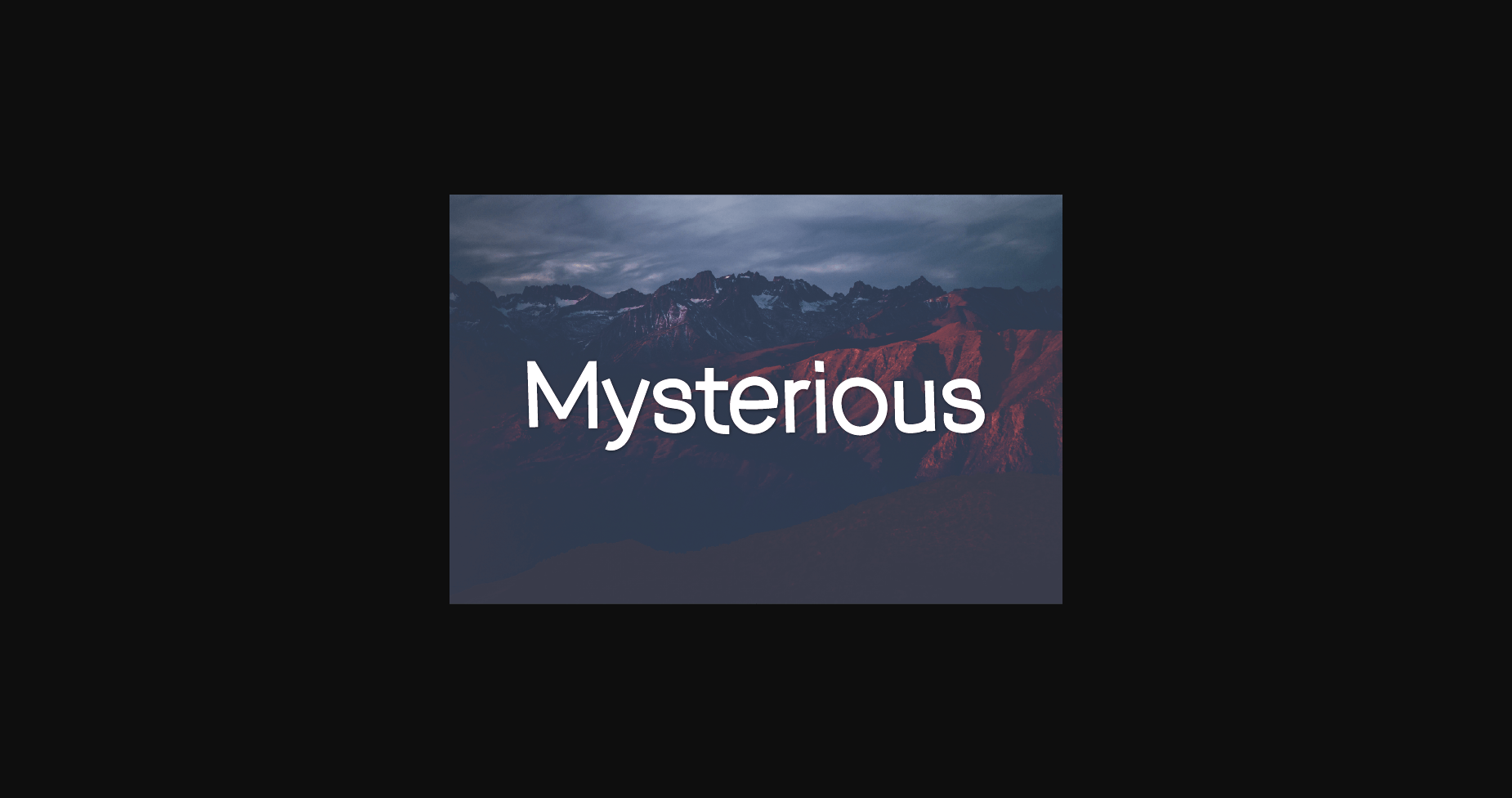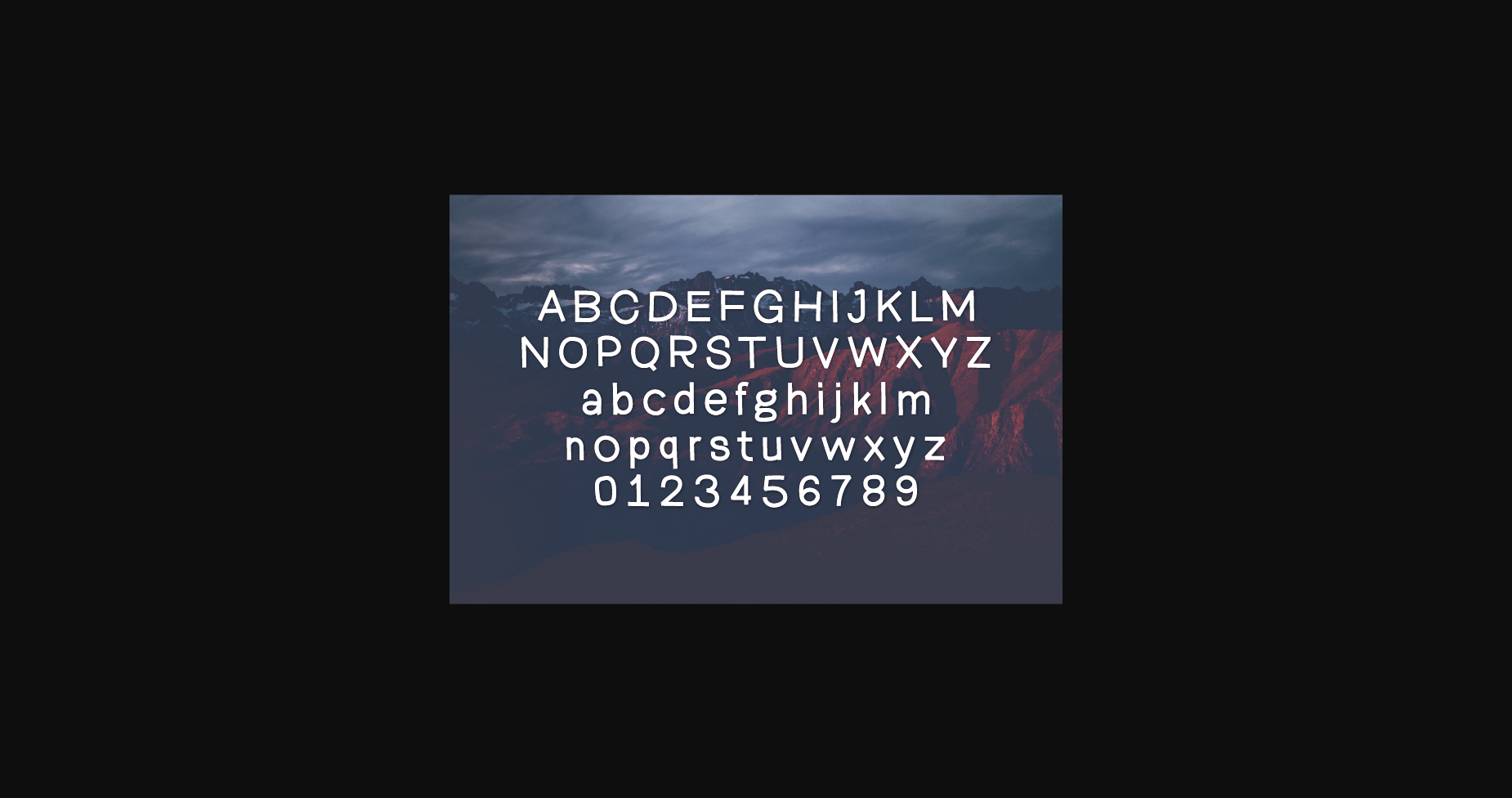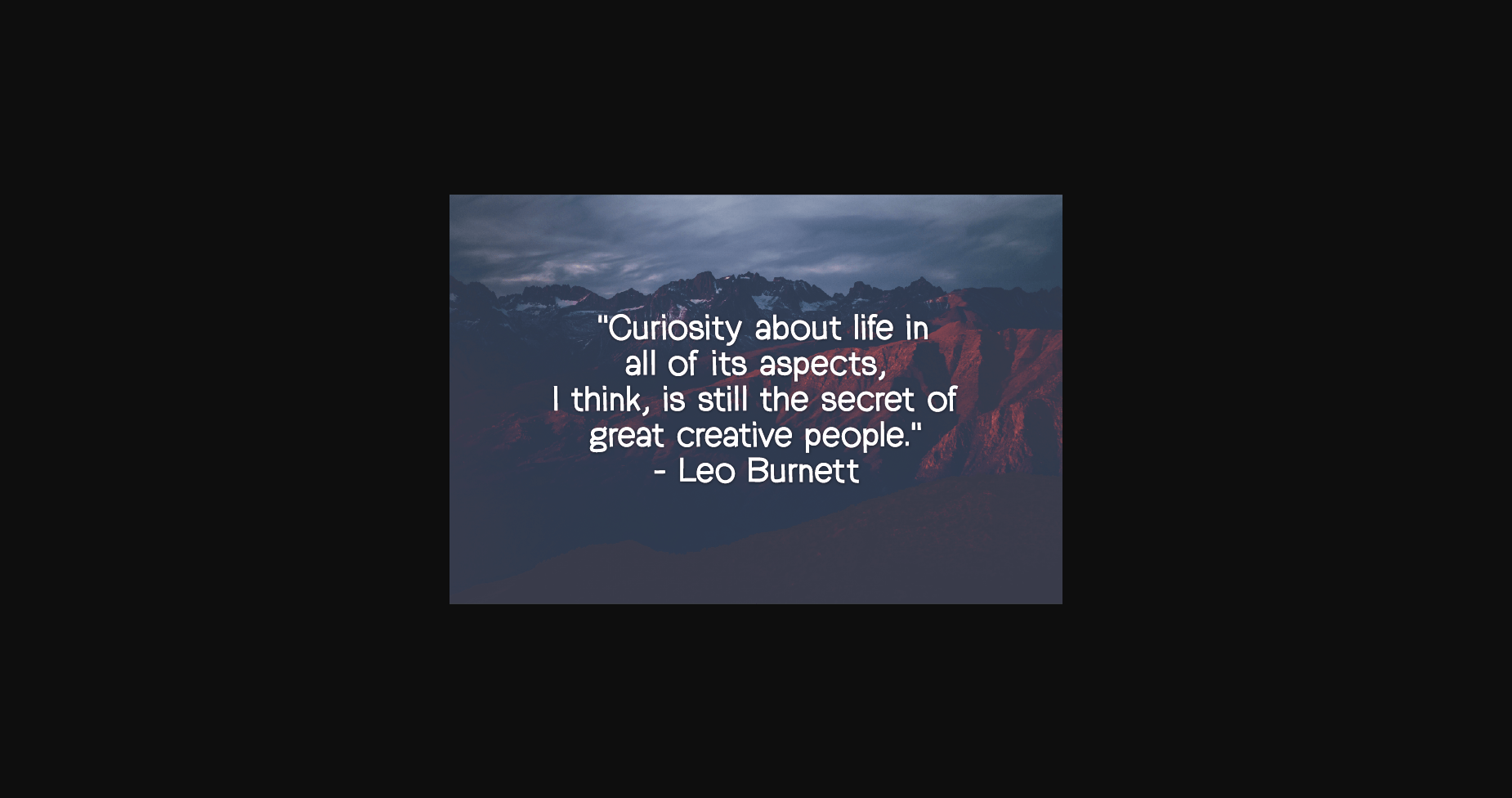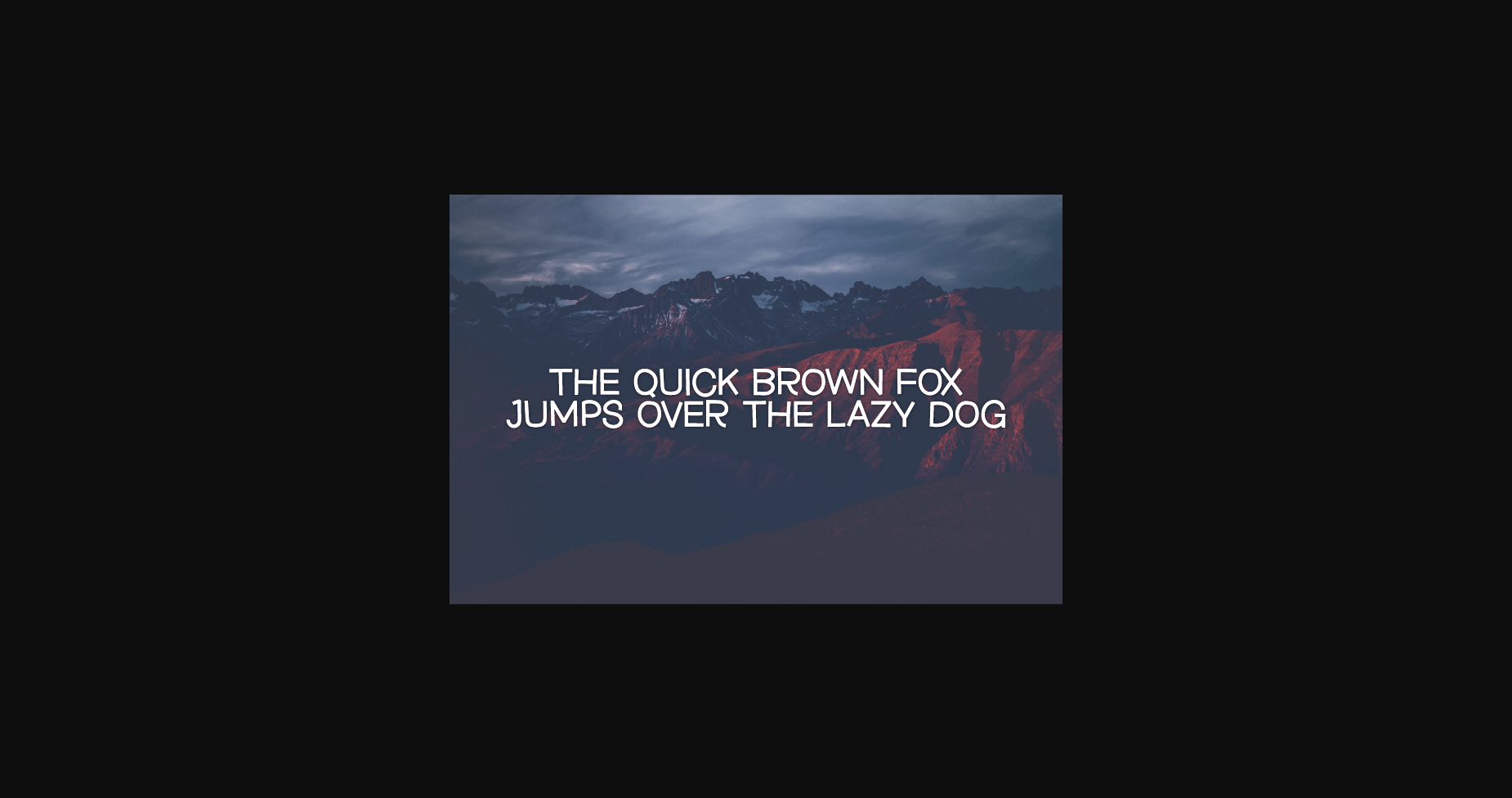
HomeSans Serif FontsMysterious Font Sans Serif Fonts Mysterious Font FacebookXPinterestWhatsApp 1 of 6 ... Mysterious Font Poster 2... Mysterious Font Poster 3... Mysterious Font Poster 4... Mysterious Font Poster 5... Mysterious Font Poster 6... About Mysterious Font Mysterious is an interesting and unique sans serif font perfect for quotes, notes, T-shirts, and many more. Add it to your font collection, and it will make your creative projects outstanding! DOWNLOAD NOW People also explored Calathea Font Sattiers Signature Font Blackswan Font Mettda Font Adrenalines Font Christmas Wish Font Craft Kit Font Laritta Font Anjanie 325 0 TagsMysterious Font Previous articleNaughty FontNext articleGorgeous Font LEAVE A REPLY Cancel reply Comment: Please enter your comment! Name:* Please enter your name here Email:* You have entered an incorrect email address! Please enter your email address here Website: Save my name, email, and website in this browser for the next time I comment. Personal Use Free Rionaldo Angelo Personal Use Free Read more about this font Brittish State Personal Use Free Read more about this font Lemon Milk Font Personal Use Free Read more about this font Carved Wood Personal Use Free Read more about this font BLOG How to Install and Use Fonts on Windows, macOS, and Web Projects How to Install and Use Fonts on Windows, macOS, and Web Projects Fonts are a crucial part of design and branding. Whether you’re designing a... Free vs Paid Fonts: Why Investing in Premium Fonts Is Worth It 5 Fonts That Will Dominate Design Trends in 2026 The 10 Best Handwriting Fonts to Add Personality to Your Designs